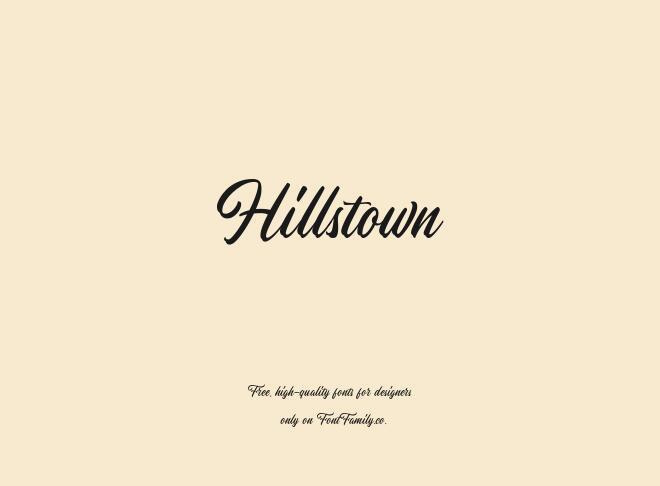
Hillstown Font
Designed by Hillstown Foundry, the Hillstown Font is a playful, rustic script font with a handwritten style, perfect for adding a touch of charm to your designs. Released in 2015, it offers a unique blend of classic handwriting and modern calligraphy, making it a versatile choice for a range of design projects. From wedding invitations to vintage-inspired branding, Hillstown Font brings an organic, handcrafted feel to any design. It stands out among other script fonts for its distinctive character and high legibility. Free for personal use, Hillstown Font is a great choice for designers looking to add a touch of rustic charm to their work.